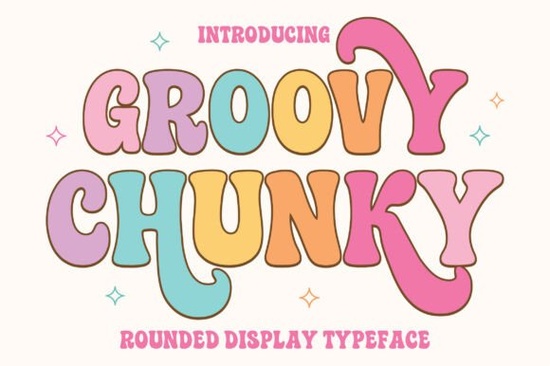
If you're looking for a display font that’s both bold and approachable, Groovy Chunky Font might be exactly what your next project needs. With its soft rounded shapes and cheerful retro vibe, it brings a playful energy without sacrificing readability even at smaller sizes. Whether you’re creating t-shirts, social media graphics, greeting cards, or branding materials, this font adds personality while staying clean and balanced.
What makes Groovy Chunky work well for small businesses and crafters?
Many display fonts look great in headlines but fall apart when scaled down or used in real-world applications like labels or packaging. Groovy Chunky avoids that pitfall. Its letterforms are chunky enough to stand out, yet the curves and spacing are carefully tuned so words remain legible. That balance is especially helpful if you’re selling printable wall art, custom mugs, or kids’ party invitations projects where charm and clarity both matter.
It also pairs surprisingly well with simpler sans-serifs or handwritten styles. If you’ve liked fonts like Cang Cute for their friendliness or School Mission for its structured playfulness, Groovy Chunky offers a bolder alternative with a similar warmth.
Is this font good for print-on-demand or digital use?
Yes it’s versatile by design. The smooth vector outlines ensure crisp output whether you’re printing on cotton tote bags or designing an Instagram story. Unlike some retro-inspired fonts that lean too heavily into 70s aesthetics (think exaggerated flares or uneven strokes), Groovy Chunky keeps things modern and tidy. That makes it easier to integrate into contemporary branding without feeling dated.
For example, if you run a small bakery and want to label your cookie boxes with something fun but not childish, this font strikes that tone. Or if you’re making quote posters for Etsy, its joyful feel can help your designs stand out in a crowded feed.
How does it compare to other retro-style fonts on Creative Fabrica?
There’s no shortage of funky display fonts out there. Retro Funky, for instance, leans into disco-era flair with sharper angles and more stylized glyphs. Rustpress offers a weathered, vintage newspaper look great for grunge projects but less suited for cheerful messaging. And Picky Rabbit has a hand-drawn whimsy that works beautifully for children’s books or nursery decor.
Groovy Chunky sits in a sweet spot: it’s clearly retro-inspired but filtered through a modern, minimalist lens. It doesn’t rely on gimmicks; instead, it uses consistent weight, open counters, and gentle curves to create impact. That’s why it’s worth considering if you want nostalgia without visual clutter.
Tips for using Groovy Chunky effectively
- Avoid tight tracking. The letters already have generous spacing squeezing them together reduces readability and mutes the friendly vibe.
- Use it for short phrases. Like most display fonts, it shines in headlines, logos, or accent text, not body copy.
- Pair with neutral backgrounds. Soft pastels, warm creams, or muted earth tones let the font’s shape take center stage without competing visually.
- Test at actual size. If you’re designing a sticker or product label, preview how it looks printed not just on screen.
Remember: the goal isn’t just to grab attention, but to communicate with warmth and clarity. Groovy Chunky does both, which is why it’s become a go-to for creators who value both style and substance.